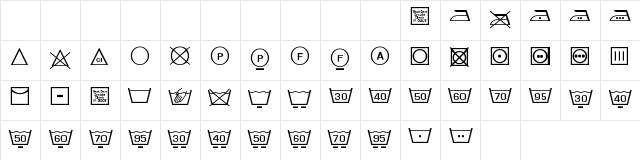
Wash Care Symbols Classic M54 Regular
Design Context for Wash Care Symbols Classic M54 Typeface
Wash Care Symbols Classic M54 has the warm character of retro typography — evoking diners, record sleeves, and the golden age of print advertising.
Font Pairing: Combine Wash Care Symbols Classic M54 with a simple slab or neutral sans — period-accurate companions reinforce the vintage feel without competing for attention.
Pro Tip: Lean into Wash Care Symbols Classic M54's period character by pairing it with aged paper textures, muted colour palettes, and vintage illustration styles.